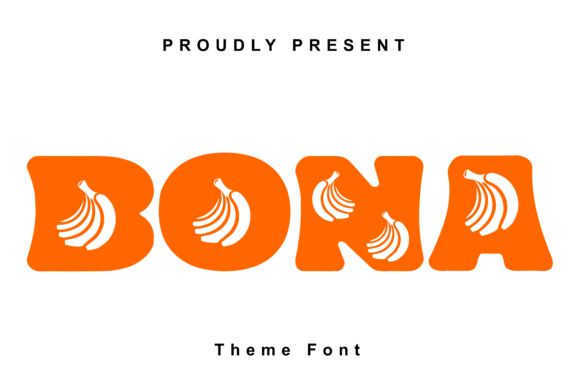
Bona Font: A Delightful Typeface for Creative Adventures
Welcome to the enchanting world of Bona, a captivating typeface that embodies the purity and joy of childhood with effortless elegance. Designed to evoke the spirit of youthful curiosity, Bona seamlessly blends lively symbols with robust type, transforming conventional characters into a visual feast that’s sure to steal the show.
The Inspiration Behind Bona
Bona is more than just a font – it’s an imaginative amalgamation of creativity and design. Crafted to inspire and capture attention, this delightful typeface is perfect for a wide range of creative adventures. Whether you’re creating educational content, children’s tales, or energetic branding efforts, Bona adds a dash of whimsy and joy that’s sure to leave a lasting impression.
The inspiration behind Bona lies in its ability to evoke a sense of nostalgia and playfulness. The font’s design is reminiscent of childhood memories, where simplicity and imagination reign supreme. By infusing your designs with Bona, you can create a cheerful and youthful atmosphere that resonates with your audience.
The Features of Bona Font
So, what makes Bona font so special? Here are some of its key features:
- Lively Symbols: Bona’s symbols are designed to add a touch of playfulness to your designs. From energetic icons to whimsical illustrations, these symbols are sure to capture attention.
- Robust Type: Bona’s typeface is robust and easy to read, making it perfect for body text and headings.
- Seamless Integration: Bona’s design ensures seamless integration with a wide range of creative projects, from educational content to branding efforts.
- Whimsical Touch: Bona’s whimsical design adds a dash of joy and playfulness to your designs, making them more engaging and memorable.
Using Bona Font for Creative Adventures
Bona font is an incredibly versatile typeface that can be used for a wide range of creative adventures. Here are some ideas to get you started:
- Educational Content: Bona’s playful design makes it perfect for educational content, such as textbooks, workbooks, and educational websites.
- Children’s Tales: Bona’s whimsical touch brings children’s tales to life, making them more engaging and memorable.
- Branding Efforts: Bona’s energetic design makes it perfect for branding efforts, such as logos, packaging, and advertising.
- Digital Media: Bona’s clean design ensures seamless integration with digital media, such as social media graphics, videos, and websites.
The Benefits of Using Bona Font
So, why should you choose Bona font for your creative projects? Here are some benefits:
- Attention-Grabbing: Bona’s playful design grabs attention and ensures your message is heard.
- Memorable: Bona’s whimsical touch makes your designs more memorable, ensuring your audience remembers your brand or message.
- Versatile: Bona’s versatility ensures seamless integration with a wide range of creative projects.
- Easy to Read: Bona’s robust typeface ensures easy readability, even for body text.
In conclusion, Bona font is a captivating typeface that embodies the purity and joy of childhood with effortless elegance. Its imaginative amalgamation of creativity and design makes it perfect for a wide range of creative adventures. Whether you’re creating educational content, children’s tales, or energetic branding efforts, Bona adds a dash of whimsy and joy that’s sure to leave a lasting impression.
So, why not dive into the delightful realm of Bona and experience the magnetic charm of simplicity for yourself? With Bona font, you can infuse your designs with a cheerful, youthful touch that’s sure to inspire and capture attention.